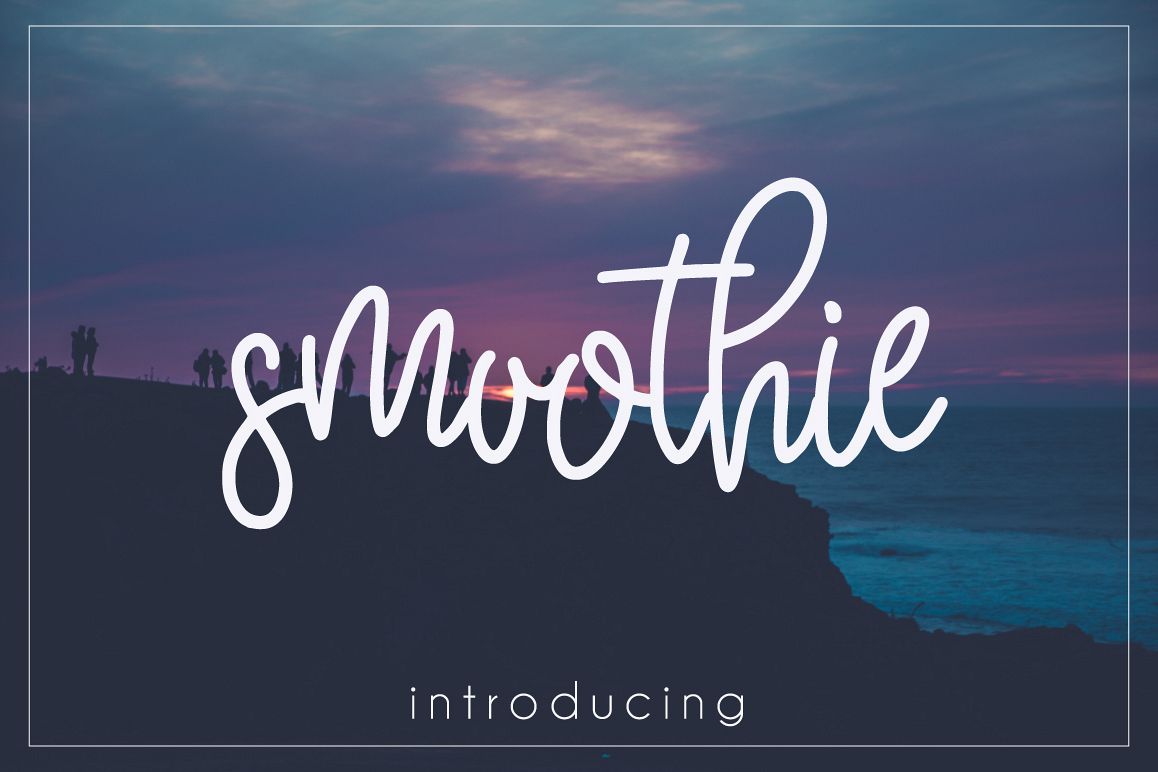
Smoothie Script
Smoothie Script - It's handwritten script. This font is ideal for branding and decorate your any project.
This font are perfect for poster or your blog. Also with their help, you can create a logo or beautiful frame for your home. Or just use for your small business, book covers, stationery, marketing, magazines and more.